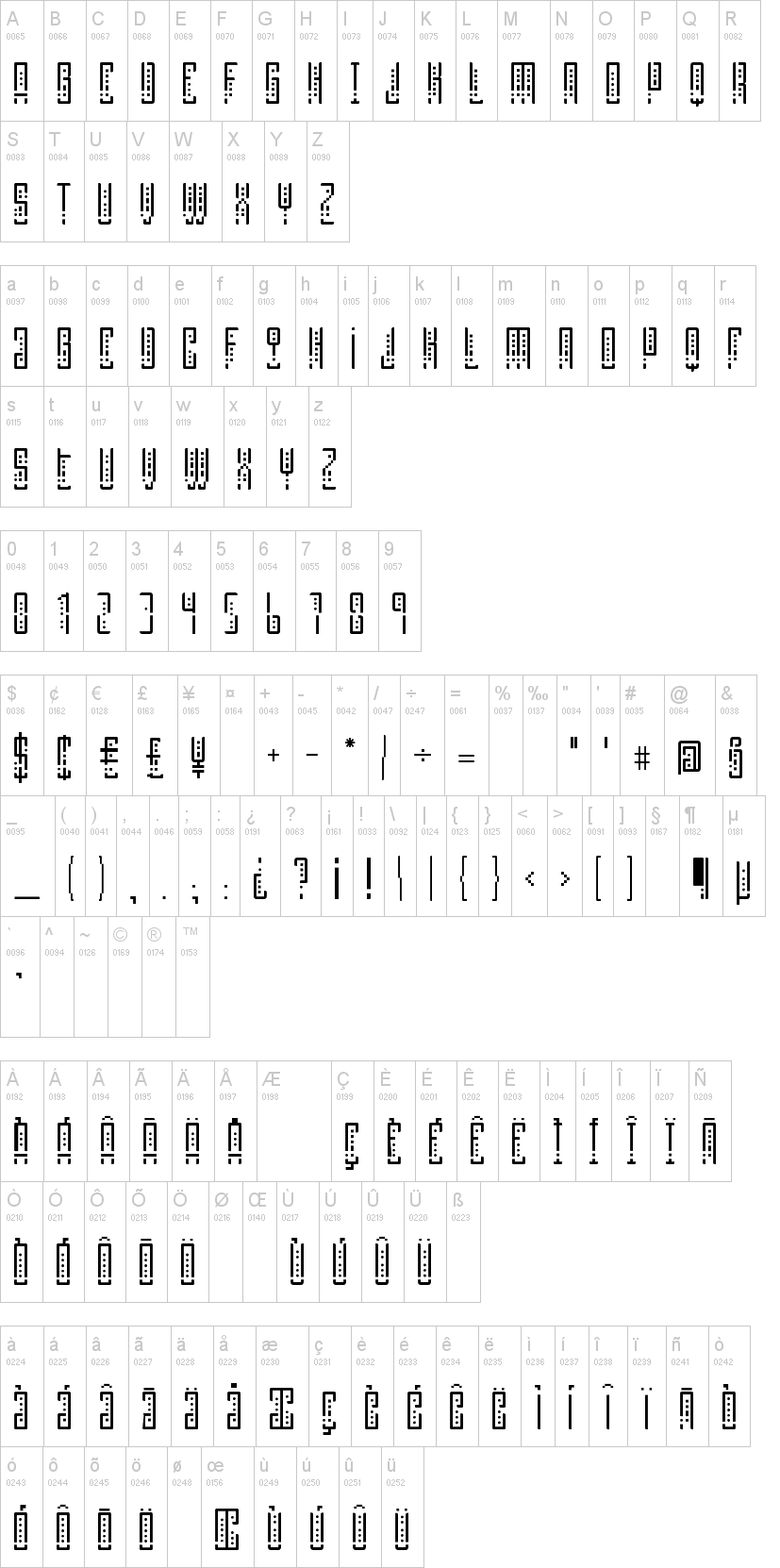
Note of the authorUnicase typography inspired body painting of warriors called selkman Ona, who settled in southern Chile.
This typography proposes a writing game between uppercase and minisculas variants, which can create an infinite variety of form for the same word.